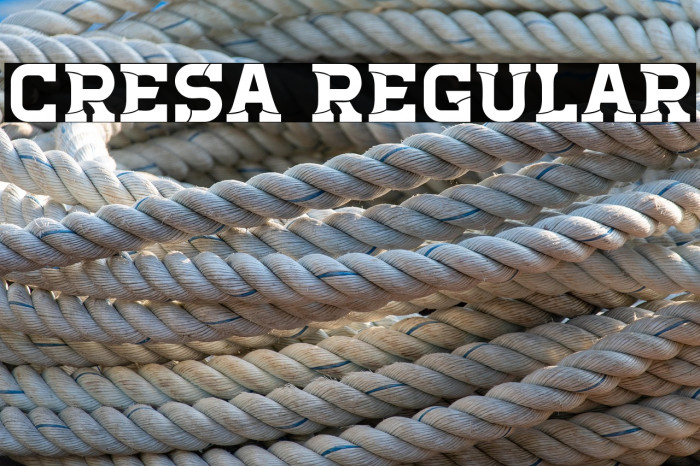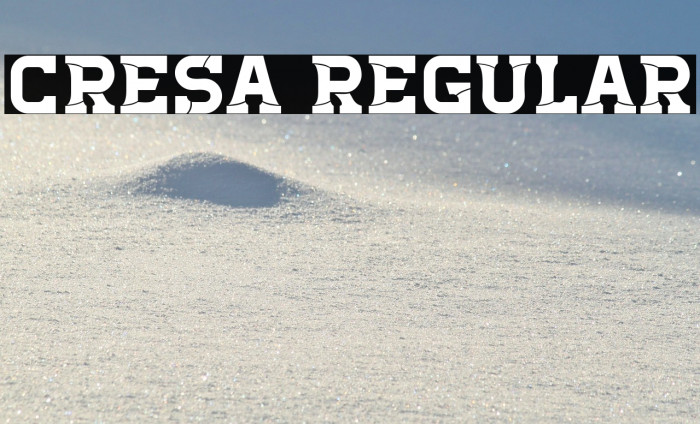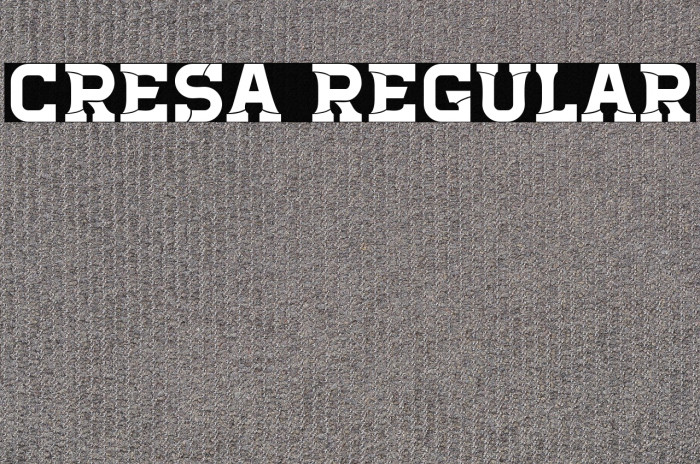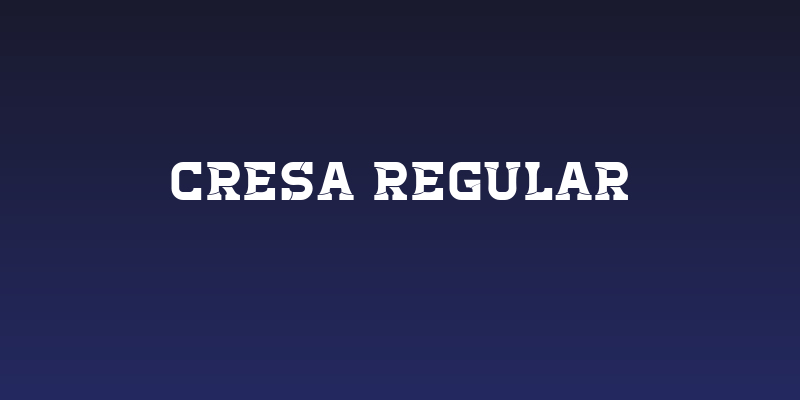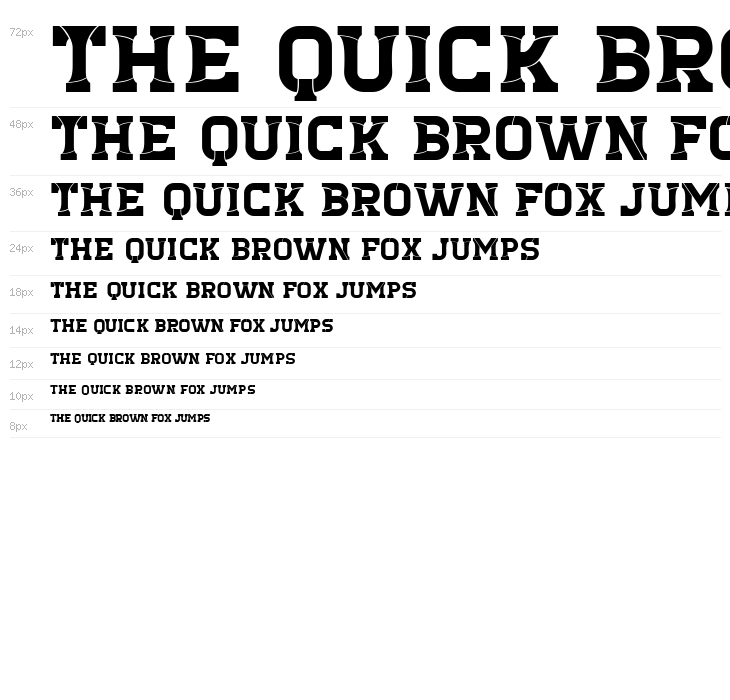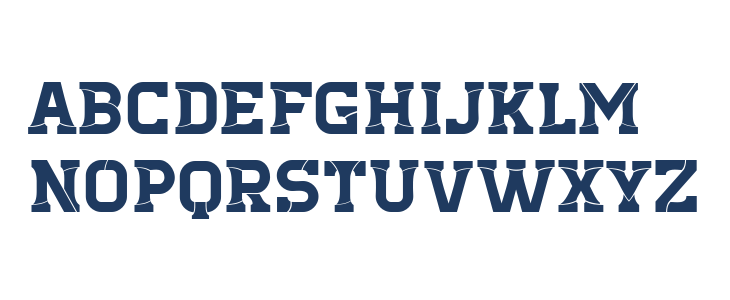
Cresa Regular Font
Cresa Regular Description
This font features a bold and striking design with a strong geometric influence. The characters are constructed with a combination of thick and thin strokes, creating a high contrast that adds to its visual impact. The angular cuts and sharp edges give it a modern and edgy appearance, making it stand out in any design. The uppercase letters are particularly prominent, with a uniform height and width that ensures consistency across the board. This font is ideal for making a statement, whether in headlines, posters, or branding materials.